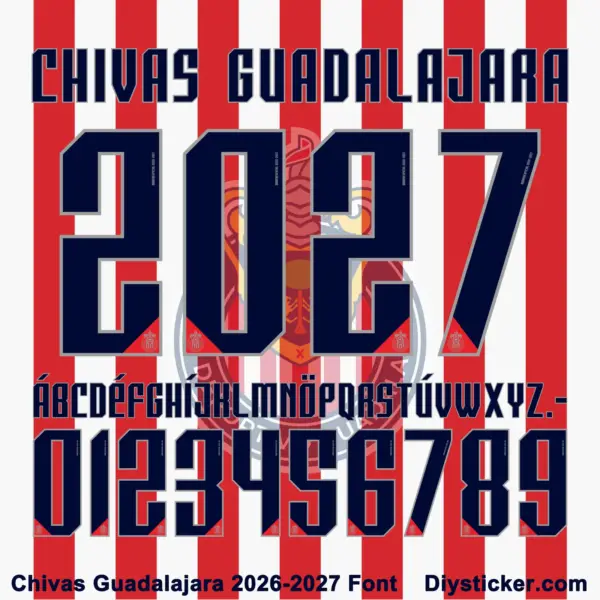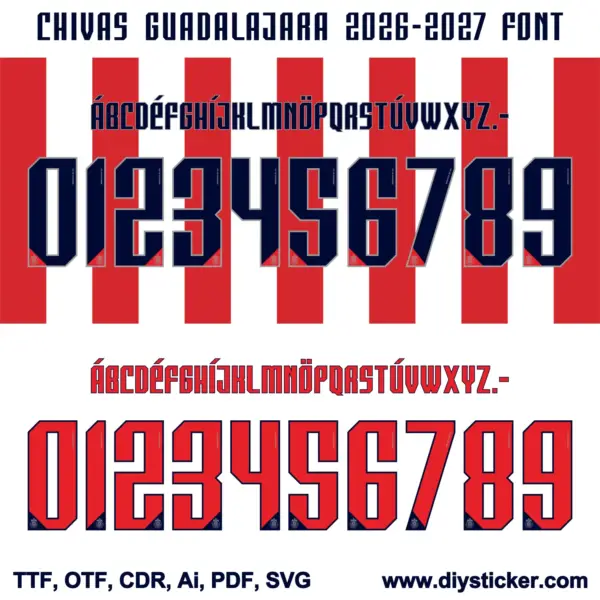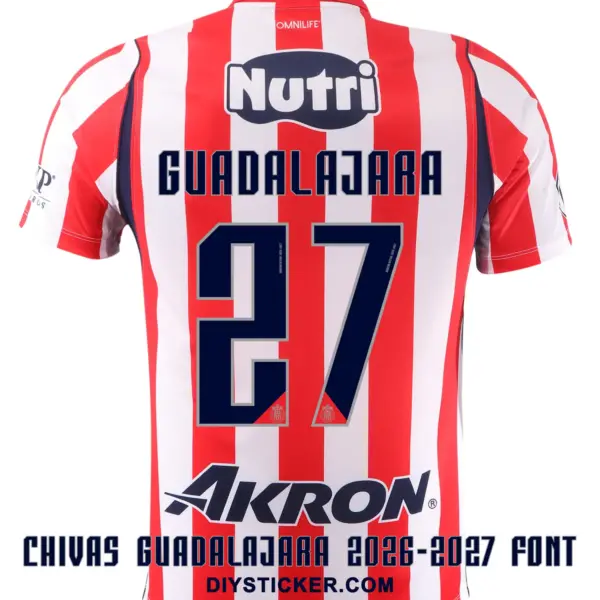
Bring iconic Liga MX style to your apparel production with the official Chivas Guadalajara 2026-2027 font download! Tailored for custom jersey printing shops, vinyl cutters, and kit collectors, this typography collection features the official cup and match-day numbering set worn by Las Chivas Rayadas. Designed with sharp octagonal block lettering, dual-tone inline borders, and the official C.D. Guadalajara crest embedded at the base of every digit, it is the premier custom jersey printing font Chivas Guadalajara solution for heat press transfers, DTF printing, and vinyl plotter cutting.
Complete uppercase alphabet, Chivas Guadalajara numbers vector, and international diacritics.
Authentic Match-Day | Chivas Guadalajara 2026-2027 Font
Upgrade your sports design assets with the official 2026-2027 kit font for Chivas Guadalajara! Crafted for high-precision sportswear customization, this digital package delivers an authentic Chivas Guadalajara 2026-2027 font download engineered to match official kit decoration standards. The typography features condensed octagonal block letters (CHIVAS GUADALAJARA) and tall squad numbers accented with a contrasting inner border and the official club crest embedded at the bottom.
Comprehensive Character Mapping
A-Z Uppercase Alphabet: High-legibility octagonal block character set engineered for player nameplates.
0-9 Custom Inlined Squad Numbers: Bold, tall numeric glyphs accented with inner outline styling and the official Chivas shield crest embedded at the bottom (supplied as Chivas Guadalajara numbers vector).
Special Accents & Diacritics: Complete set of international accents (
Á,Č,Ç,É,Ğ,Í,Ñ,Ö,Š,Ú,Ž,.,-) to accurately render player nameplates across global squad rosters.